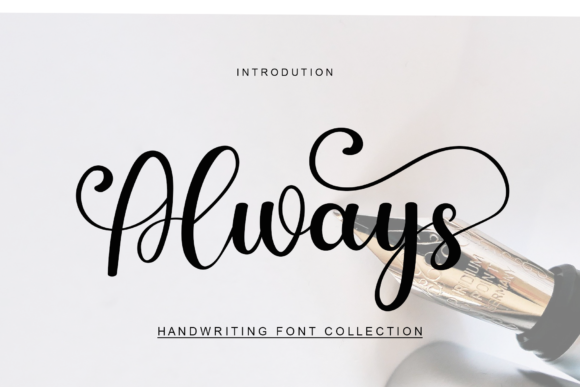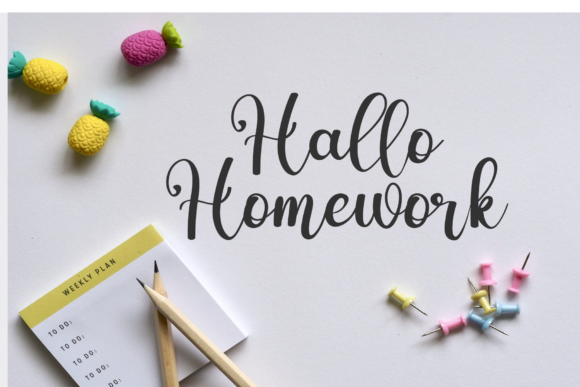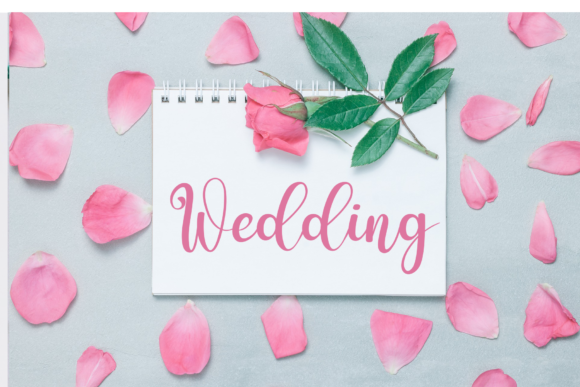
About Always Font
Introducing “Always,” a beautiful and flowing handwritten font that brings a touch of elegance to your creative projects. Beyond being just a typeface, Always is a carefully crafted design element that enhances the visual appeal of your work. Whether you’re working on wall displays, wedding invitations, social media post logos, advertisements, product packaging, labels, photography, watermarks, invitations, stationery, or any project that demands impressive typography, Always is the perfect choice.
The beauty and flow of Always shine through its handwritten design, offering a harmonious blend of grace and style. Imagine using this font for wedding invitations, where its flowing script adds a touch of romance to the design. Envision it on social media posts, logos, or product packaging, infusing a sense of elegance into your brand identity. Always becomes a versatile tool for creating visually appealing and impactful designs across a variety of projects.
Always is well-suited for different creative contexts, adapting seamlessly to deliver a visual impact that is both beautiful and memorable. Its flowing script and impressive typography make it a versatile choice for a wide range of design applications.
Choose Always as the font that brings a beautiful and flowing handwritten style to your projects. Let its elegance and grace add a touch of sophistication to your wedding invitations, social media posts, product packaging, and more. Allow Always to be the creative element that elevates your designs, creating a visual impact that is both impressive and memorable.